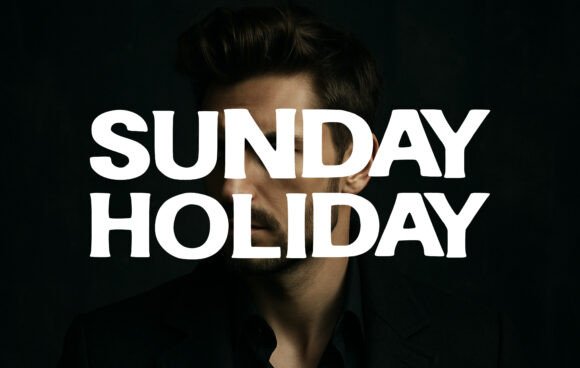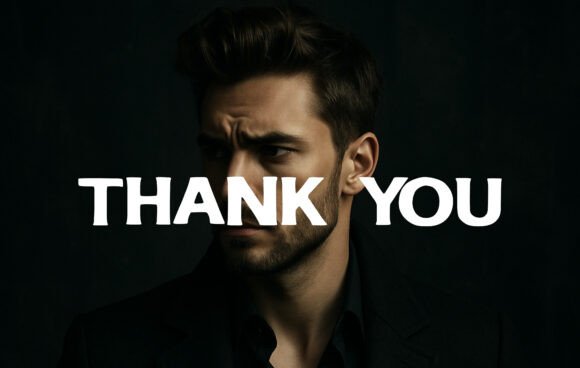
The Perfect Typography to Elevate Your Design
Have you ever stared at a blank canvas, struggling to find the perfect font to bring your vision to life? You’re not alone. As designers, we’re constantly on the hunt for that one special typeface that captures the essence of our creative direction. For those seeking a bold and modern display font that exudes quiet strength and refined confidence, look no further than the Gleam Font.
With its thick strokes, subtly softened edges, and vintage craftsmanship, the Gleam Font is designed to make a statement. Whether you’re crafting a powerful brand identity, fashion editorial, or sleek packaging, this versatile font delivers clean, expressive typography with undeniable presence. By incorporating the Gleam Font into your design, you’ll add a touch of sophistication and refinement that’s sure to elevate your project to the next level.
Gleam Font Key Features
- Font Family: Gleam Font is a sans-serif font family designed for digital use.
- Font Sizes: Supports a wide range of font sizes, from 8pt to 120pt, making it suitable for various applications and designs.
- Resolution: Designed for high-resolution displays, Gleam Font is optimized for use at 72 dpi, 96 dpi, and 144 dpi.
- Unique Characteristics: Gleam Font features a clean, modern design with a high x-height, making it highly legible even at small font sizes.
- Language Support: Supports a wide range of languages, including Latin, Cyrillic, and Greek scripts, making it a versatile choice for international applications.
Gleam Font Review
Overall, I found the Gleam Font to be a visually appealing option for those looking for a stylish, modern font. ✨ It’s perfect for use in titles, headings, and other areas where you want to grab the user’s attention. The font’s sleek design makes it ideal for digital applications, including websites, mobile apps, and social media.
Here are some of the things I like about the Gleam Font:
- ✨ High level of legibility: The font is easy to read, even at smaller sizes.
- ✨ Wide range of styles: The Gleam Font comes in several styles, including regular, bold, italic, and bold-italic, making it versatile and adaptable to different design needs.
- ✨ Highly customizable: The font can be easily customized to fit your brand’s unique style and tone.
However, I did encounter some limitations with the Gleam Font:
- ⚠️ Limited support for languages with complex scripts: The font may not support languages like Chinese, Japanese, or Arabic as well as other fonts.
- ⚠️ May not be suitable for body text: While the font is great for titles and headings, it may be too ornate for use in body text.
Overall, I would recommend the Gleam Font for designers who need a stylish, modern font for their digital projects. With its high level of legibility, wide range of styles, and high level of customization, it’s a great choice for anyone looking to make a statement with their design.
To get the most out of Gleam Font, try combining it with other elegant fonts or using it in conjunction with bold or italic text. You can also experiment with different font sizes and colors to create a unique and eye-catching design.
The Gleam font is particularly well-suited for use in wedding invitations, baby shower invitations, and other special occasion cards. It can also be used in branding and marketing materials, such as logos and business cards, to add a touch of elegance and sophistication.